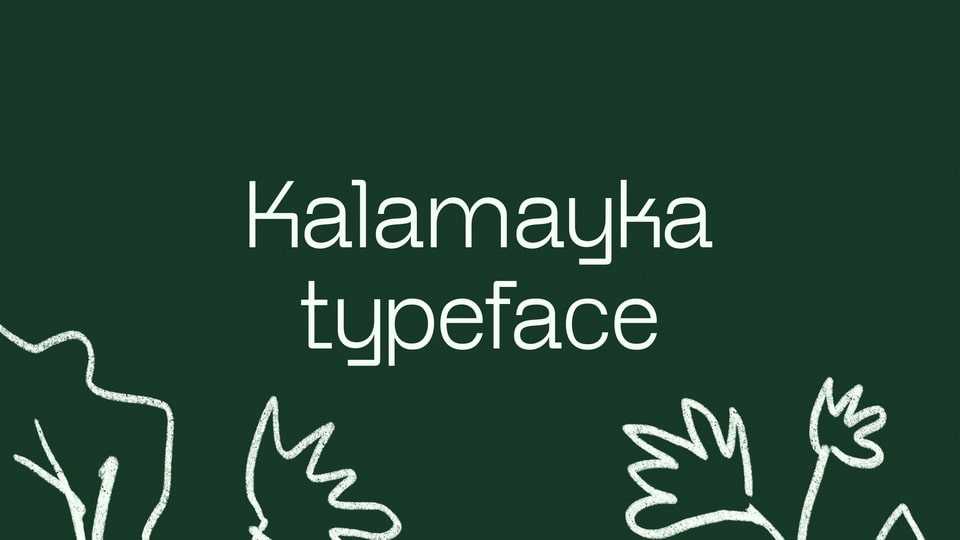
Download Kalamayka font, a variable typefaceinspired by the feeling of freedom, the carefree spirit of youth, and the playful chaos that seems to follow wherever the adventure leads.
Designer: Bettina Herbály